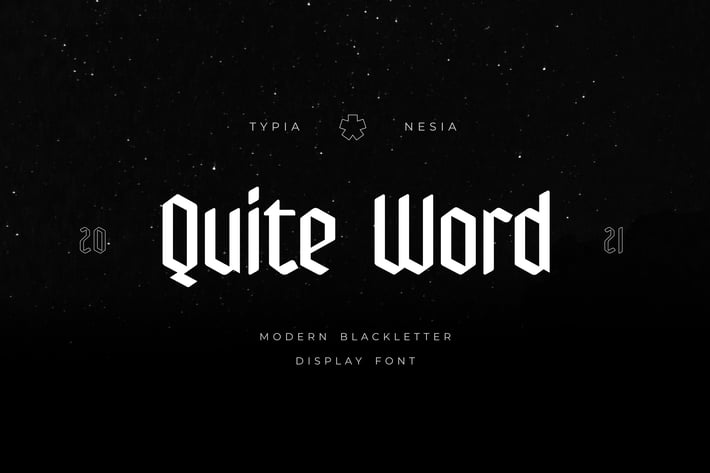
Quite Word - Modern Blackletter Font
Quite Word Modern Blackletter - Decorative Display Font
Suitable for any design needs : logo, branding, modern advertising design, halloween horror poster, gothic design, apparel, hardcore music, animation or movie, logos, poster quote, book / cover Title, editorial design, website / blog, card, custom mug, pillow, t-shirts, and any gothic hand-lettered needs.